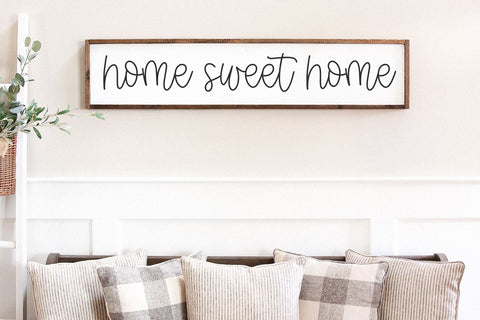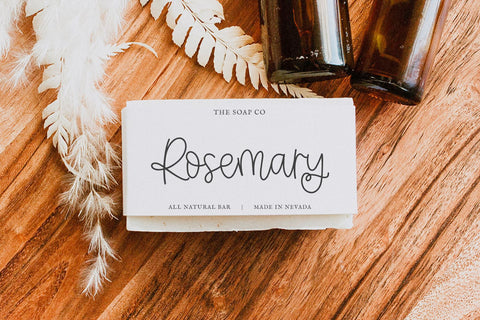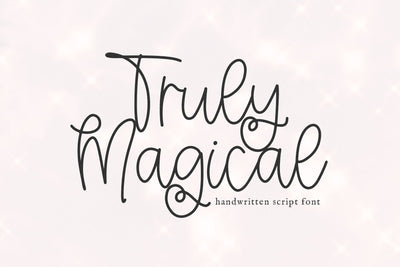
Truly Magical - Handwritten Script Font
Truly Magical is a delicate handwritten script font.
This font is perfect for your craft projects, wedding decor, invitations, signs, logos, quotes, shirts, mugs and more!